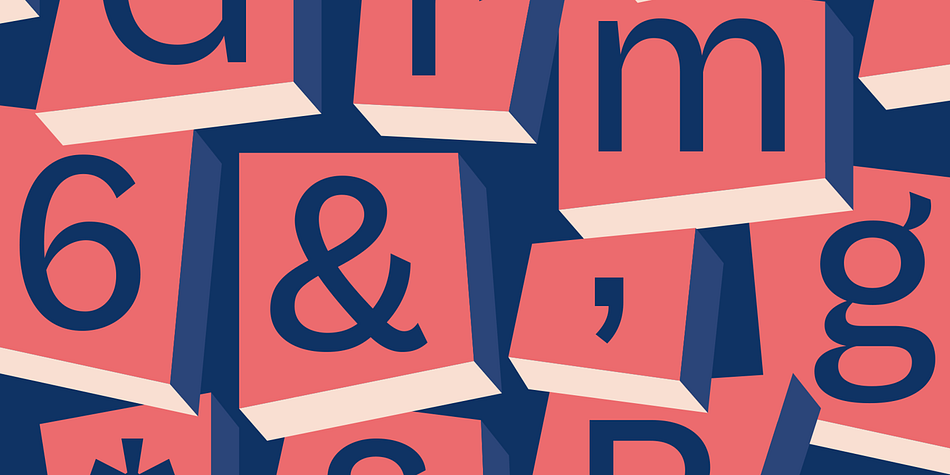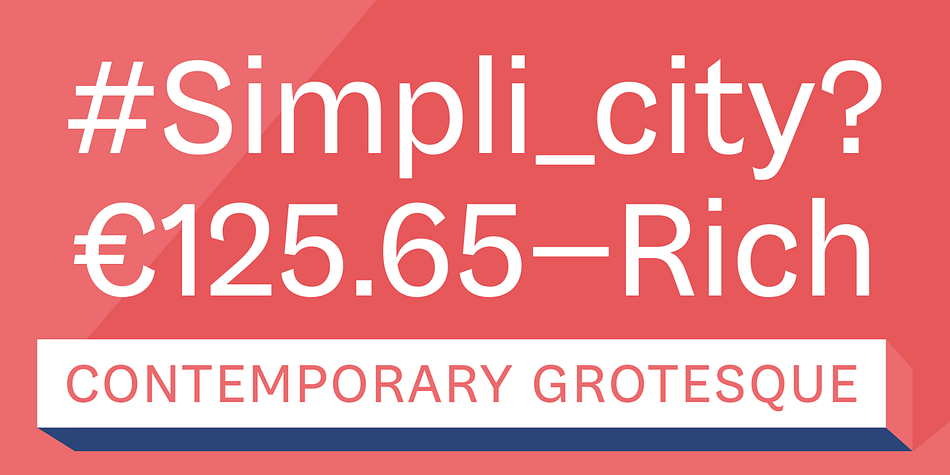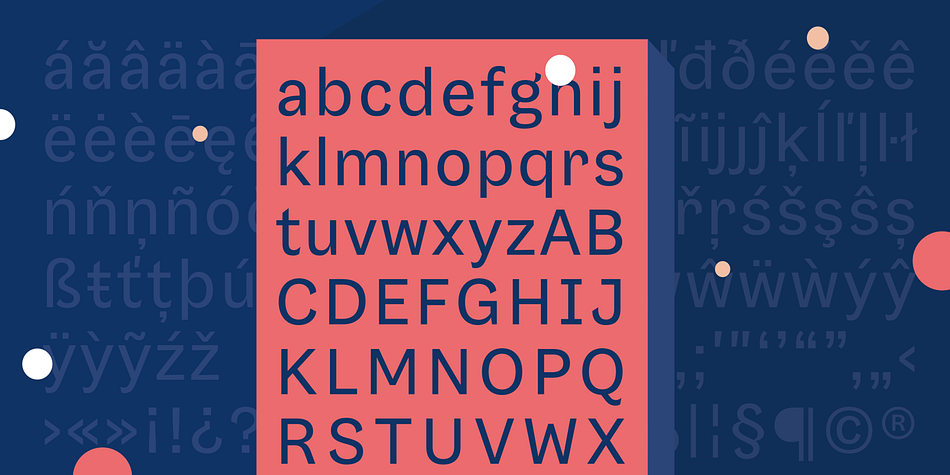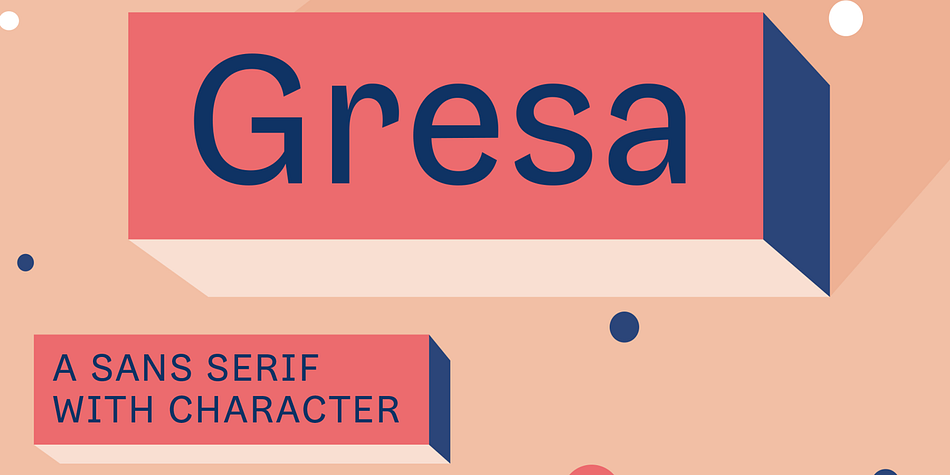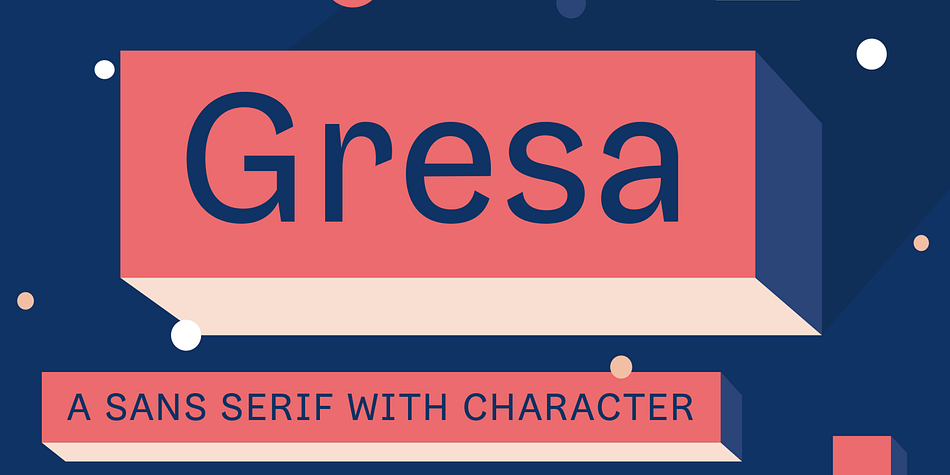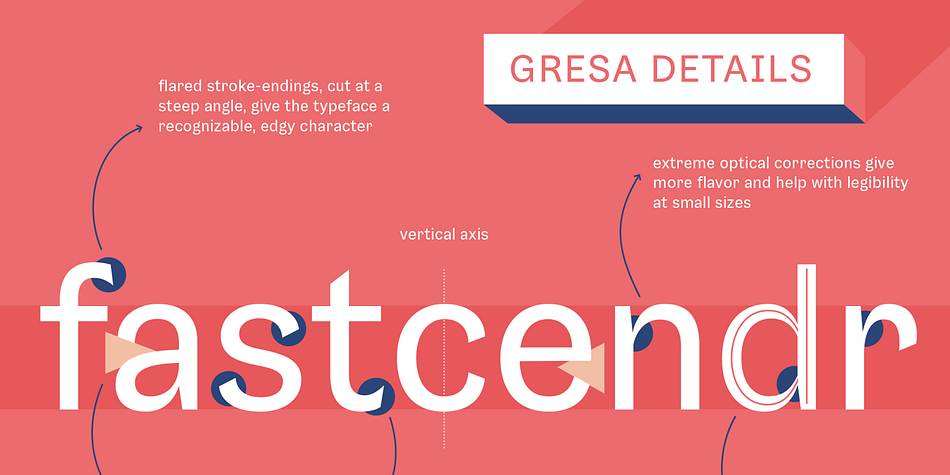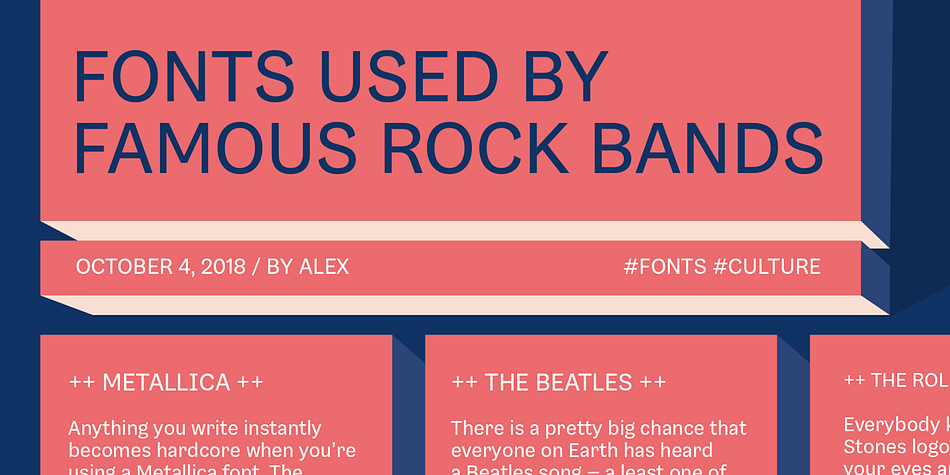
Designed by Diana Ovezea, Gresa is a sans serif font published by Alexandru Cuibari.
Gresa is an expressive sans serif typeface, which tries to differentiate itself from the plethora of sterile grotesque designs. The flared stroke endings, thin connections, and square dots give this typeface a modern edginess. With its recognizable curly ‘r’ and capital ‘I’ with serifs, as well as its slightly condensed proportions, Gresa is ideal for usage in branding, blogging, and editorial projects. At large sizes, the reader can admire the sharp corners and precise curve tension. At smaller sizes, these characteristics add to the legibility of the typeface.